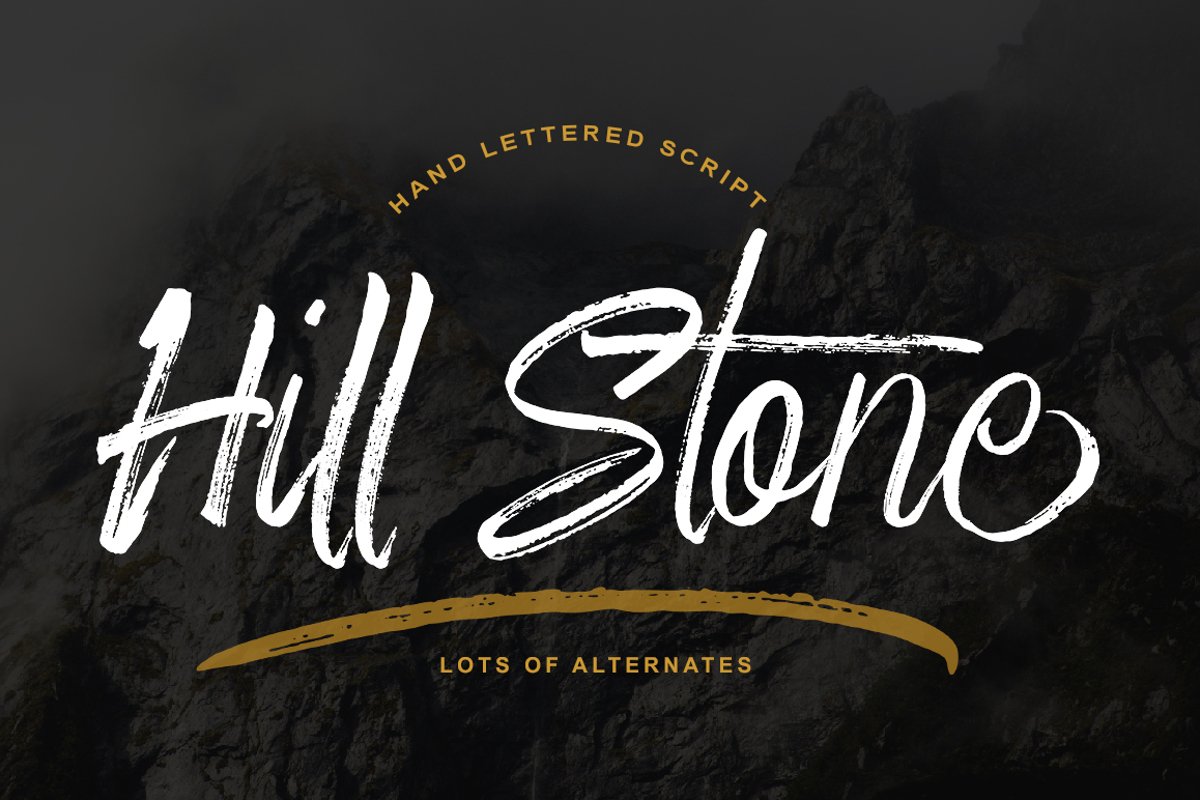
Hill Stone
Hill Stone swash
Hill Stone
Hill Stone is a textured brush font, a contemporary approach to design, handmade naturally and with an underscore. It also has alternatives and ties that make your design more attractive.
Suitable for use in title designs such as clothing, invitations, booklets, stationery designs, quotes, branding, brand projects, logos, greeting cards, t-shirts, packaging designs, posters, product packaging, news, blogs, all including personal charm and the other.